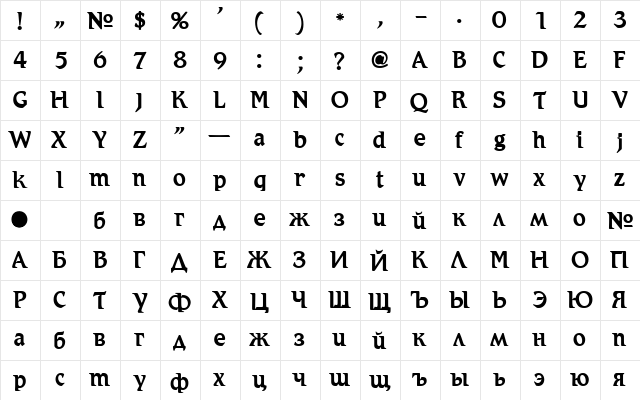
Romic Normal Font Preview
Romic Normal
Romic Normal Font Details
Design Context for Romic Typeface
Romic offers clean, dependable letterforms without strong stylistic allegiance, making it a practical choice for designers who need flexibility.